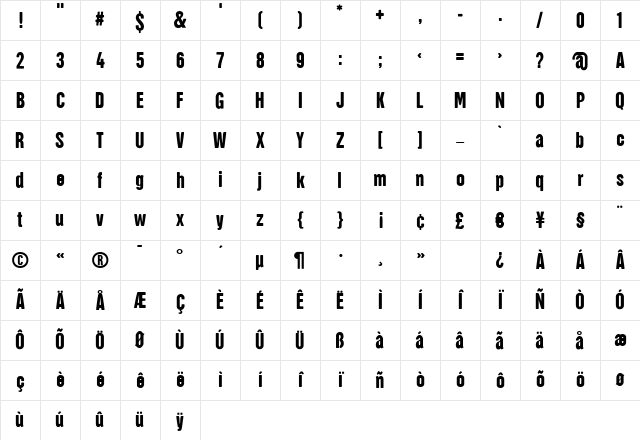
Complete Hector Regular glyph index. Displaying only characters natively supported by Hector Regular font.
Hector is a composed and adaptable typeface that performs quietly and consistently across a wide range of design contexts.